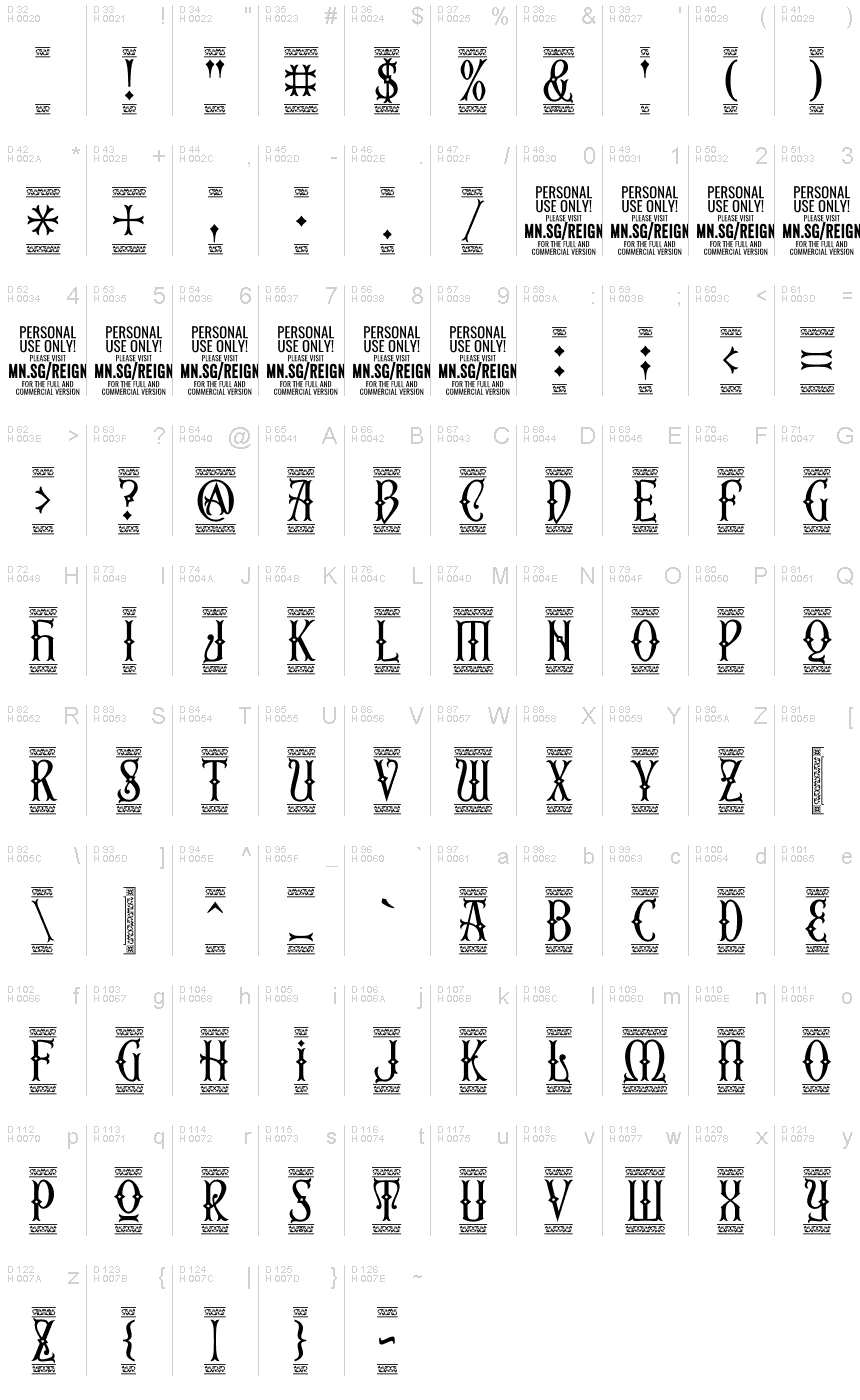
Second Reign PERSONAL USE ONLY Border
Second Reign Border font is a decorative gothic typeface designed by Mans Greback.
To make heraldic symbols, copy these icons: ? ? ? ? ? ? ? + ♖ ✝ ⚓ * ⚔
Alternatively write %A %B %C ... etc to create the heraldry. (Download required.)
Dragon, Horse, Crown, Sword, Eagle, Deer, Cross, Anchor are some of the logos.
Use [ ] for side borders.
Example: [Royal⚔Thrones]